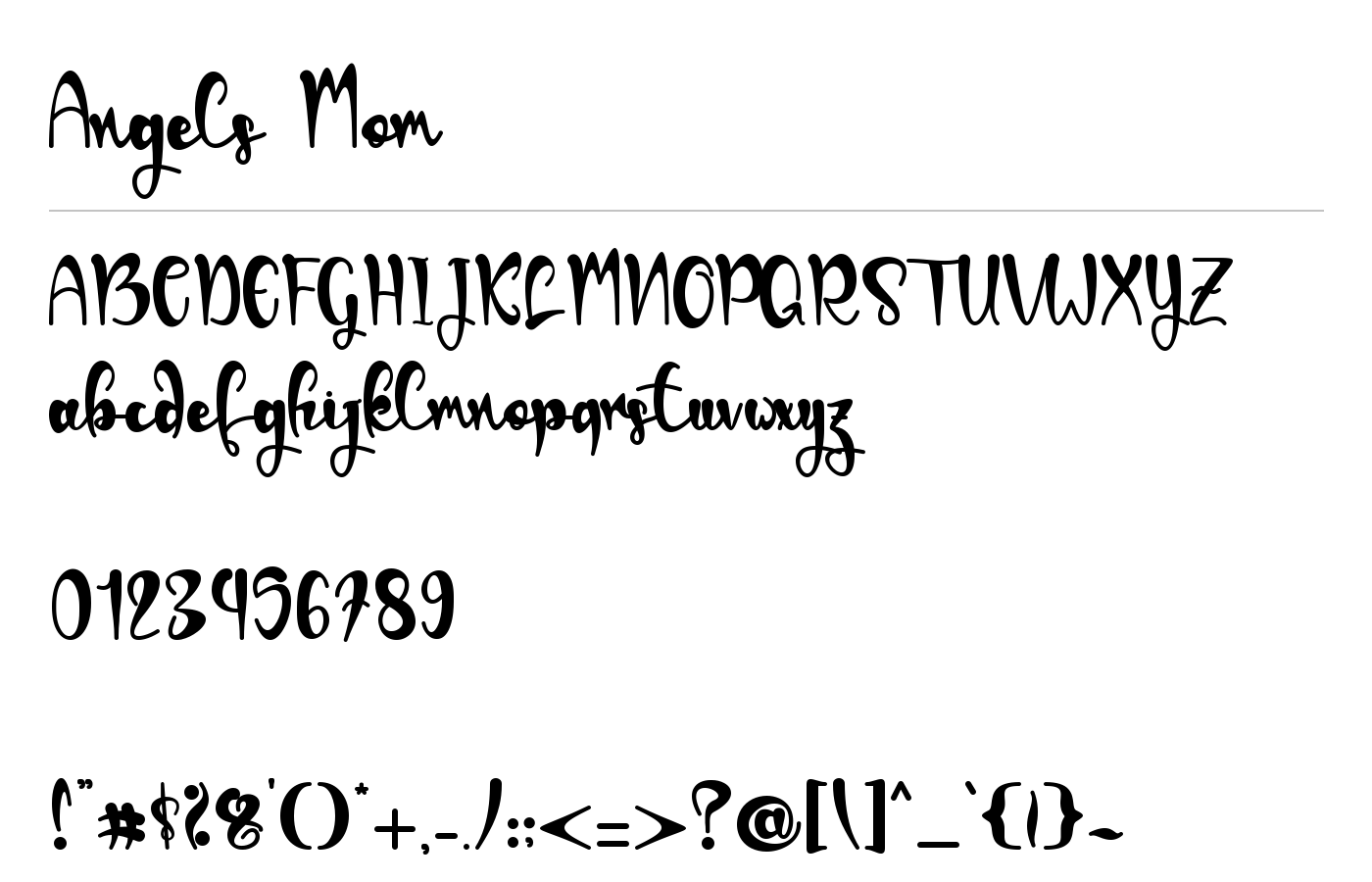
Angels Mom is a playful and whimsical script font that features a casual, hand-drawn style with smooth, rounded strokes and unique character shapes. Its friendly and lighthearted design makes it perfect for creative projects, children’s products, greeting cards, and branding that aims to convey warmth and personality. The font’s distinctive, slightly irregular letterforms give it an approachable charm that stands out in both headlines and decorative uses.
Angels Mom Font
About Angels Mom Font
| Font family | Angels Mom Font |
| Designer | Arkrist Letter |